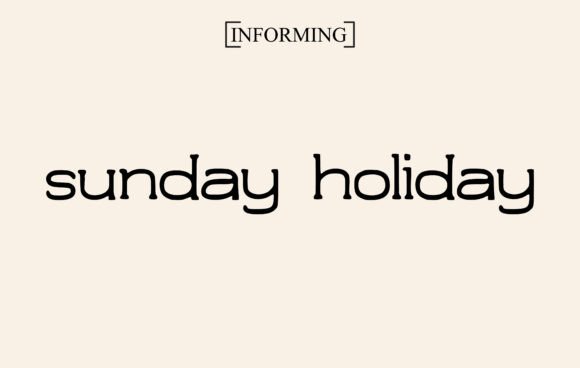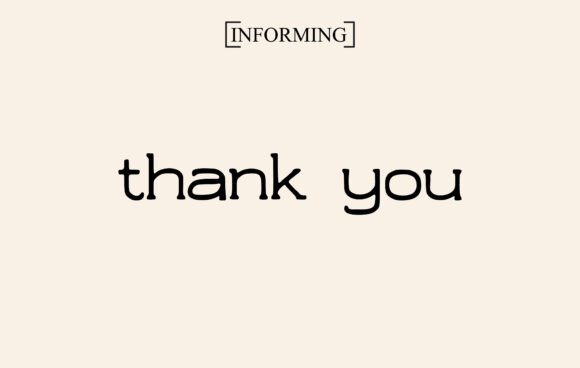
Discover the Elegance of Gracecall Font: Elevate Your Designs with Sophistication
In the world of typography, a font can make all the difference in transforming a design from ordinary to extraordinary. For designers and crafters seeking a touch of elegance and sophistication, the Gracecall font is an exceptional choice. Expertly designed to captivate and inspire, Gracecall has the potential to take your creative ideas to the highest level, making it a true favorite among typography enthusiasts.
Legibility and Versatility
One of the standout features of the Gracecall font is its exceptional legibility. Whether you’re using it as a title or body text, this font ensures that your message is conveyed clearly and effectively. Its clean lines and well-crafted letterforms make it easy to read, even at smaller sizes. This versatility is invaluable for designers who need a font that can perform well across various applications.
Perfect for a Wide Range of Designs
Gracecall’s adaptability makes it suitable for a myriad of design projects. Here are some of the areas where this font truly shines:
• Magazine Headlines: Add a touch of sophistication to your magazine covers with Gracecall. Its elegant appearance is sure to grab attention and set the tone for your publication.
• T-Shirts: Create stylish and memorable apparel with Gracecall. Its clear and distinctive lettering ensures that your message or brand name stands out.
• Social Media: Enhance your social media presence with Gracecall. Use it for post titles, quotes, or any text you want to highlight, making your content more engaging and professional.
• Branding: Establish a refined and luxurious brand identity with Gracecall. This font’s classic appeal can help convey a sense of quality and sophistication.
• Wedding Invitations: Make your wedding invitations truly special with Gracecall. Its elegant design adds a touch of romance and class to your wedding stationery.
• Cards: Whether it’s a greeting card, a thank you note, or any other type of card, Gracecall brings a level of refinement that makes your message even more special.
Why Choose Gracecall?
Choosing a font for your design project can be overwhelming, given the numerous options available. However, Gracecall stands out for several reasons:
• High-Quality Design: The attention to detail in Gracecall’s design ensures that it looks great in both digital and print formats.
• Timeless Appeal: Unlike trendy fonts that may quickly become outdated, Gracecall has a timeless quality that ensures your designs remain stylish for years to come.
How to Get the Most Out of Gracecall
To maximize the potential of the Gracecall font, consider the following tips:
• Experiment with Sizes: Don’t be afraid to play around with different sizes to see how Gracecall looks as a headline or body text.
• Pair it with Other Fonts: While Gracecall is beautiful on its own, it can also be paired with other fonts for contrast. Look for fonts that complement its elegant style.
• Adjust the Color: The right color can enhance the impact of Gracecall. Experiment with different colors to find the one that best suits your design.
Gracecall font is more than just a typeface; it’s a design element that can elevate your projects to new heights. Its legibility, versatility, and timeless elegance make it an excellent choice for designers and crafters looking to add a touch of sophistication to their work. Whether you’re creating magazine headlines, t-shirts, social media content, or wedding invitations, Gracecall is sure to impress. Discover the elegance of Gracecall and let it become your go-to font for all your creative endeavors.